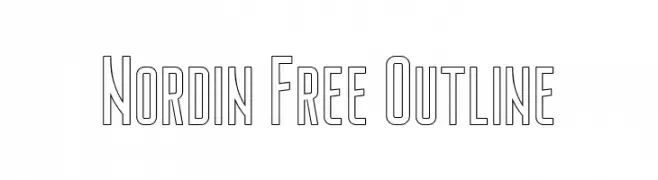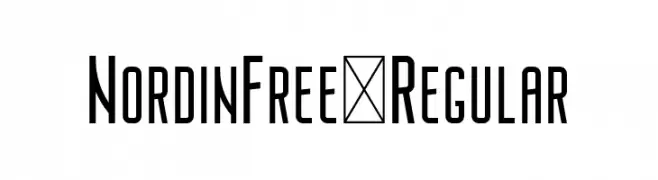
A modern, geometric sans-serif font with a tall, condensed style.
A modern, geometric outline font with clean lines and a structured appearance.
A modern, geometric font with clean lines and a slightly condensed form.
A modern, outlined uppercase font with a sleek, geometric design.